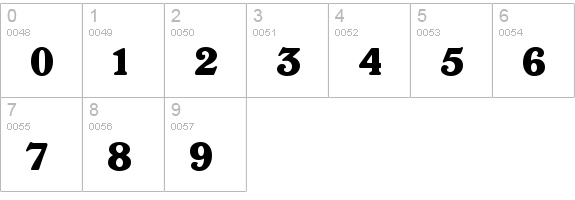
Dictionary Normal Font Details
Dictionary Normal is the standard, neutral variant in the Dictionary typeface family \xE2\x80\x94 well suited to general body text, paragraphs, and standard typographic work.
Dictionary Normal font is a versatile and classic typeface that is perfect for various design projects. With its clean lines and easy readability, this font is suitable for both headers and body text. It exudes a sense of professionalism and sophistication, making it a popular choice for a wide range of applications. Best of all, Dictionary Normal font is available for free download at FontsMarket.com. Whether you're working on a print design, website, or any other creative project, this font is sure to enhance the overall aesthetic and readability. Don't miss out on the opportunity to add this stylish and timeless font to your collection today!